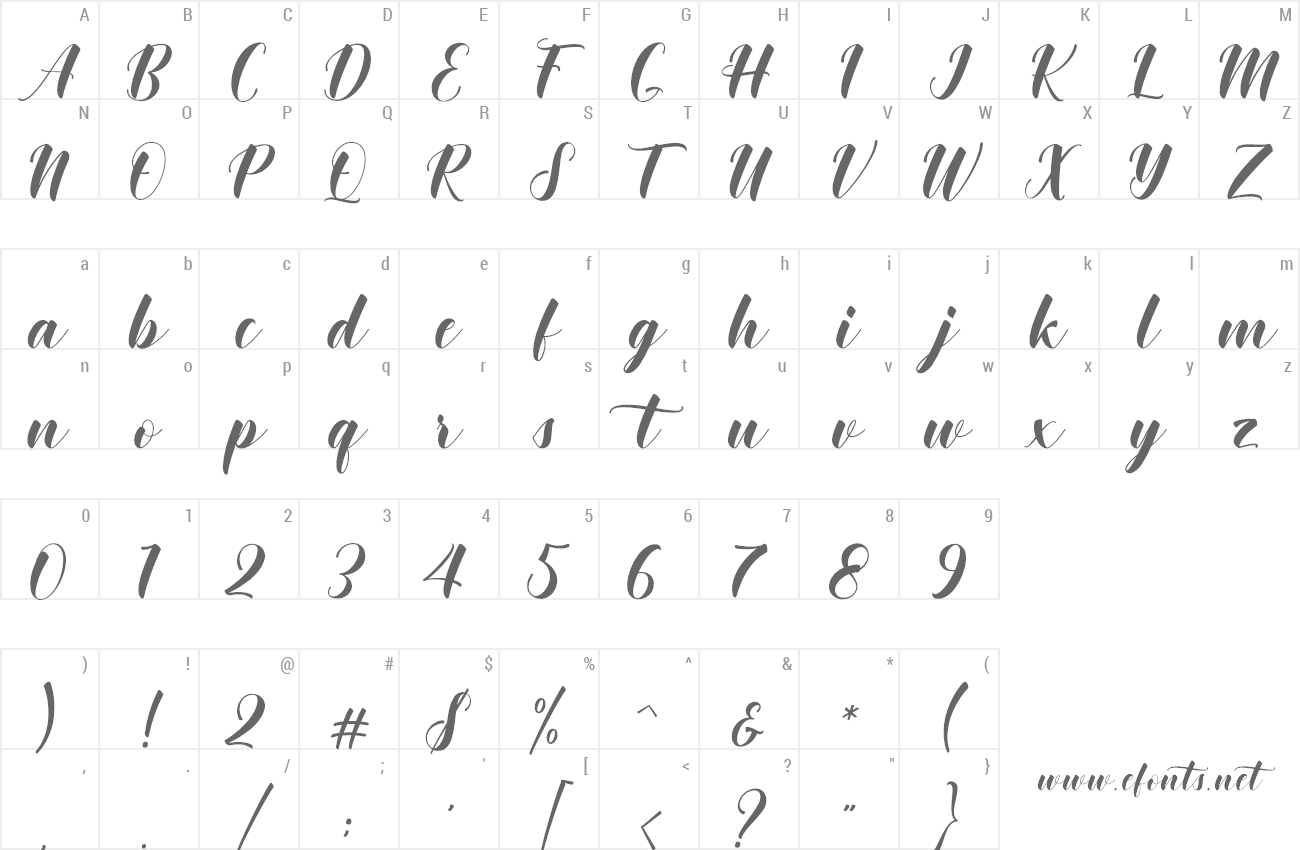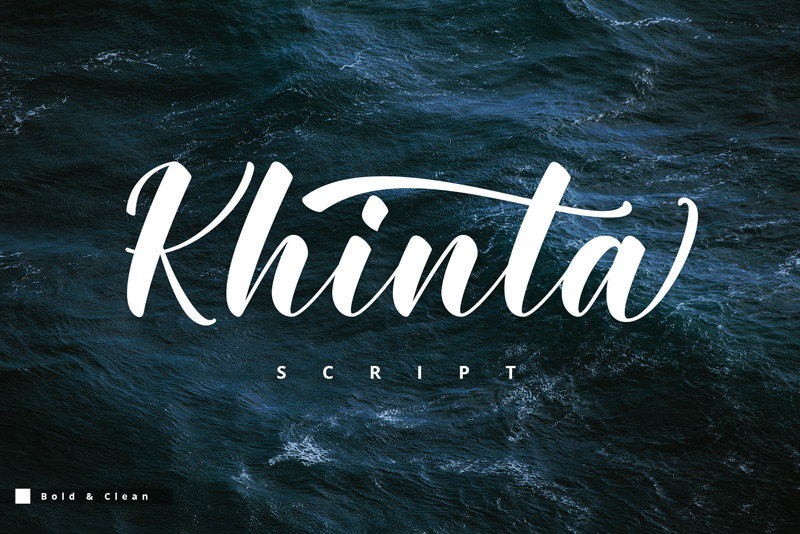
| Font name: | Khinta Script |
| Author: | FadeLine Std. |
Hello! Introduce Khinta Script! This is a new font script. Khinta comes with a bold and clean style, in this font you will find a style that is firm, luxurious and simple. Available 400 glyphs in it! So you can use it freely as you wish and your design work needs! This font is free for just Personal use Link to download full version : https://crmrkt.com/Dv3kjO Visit my store for more great fonts: https://creativemarket.com/fadeline Thank you! |